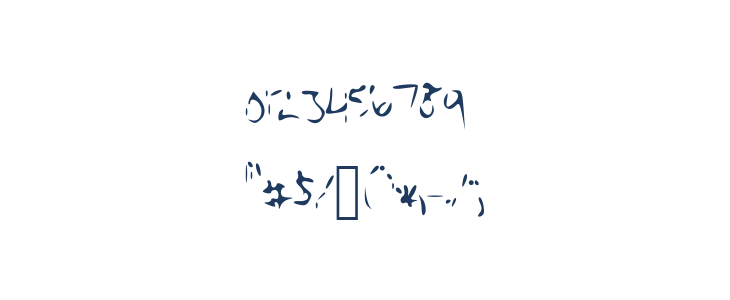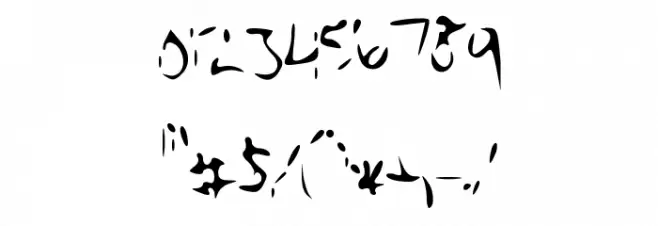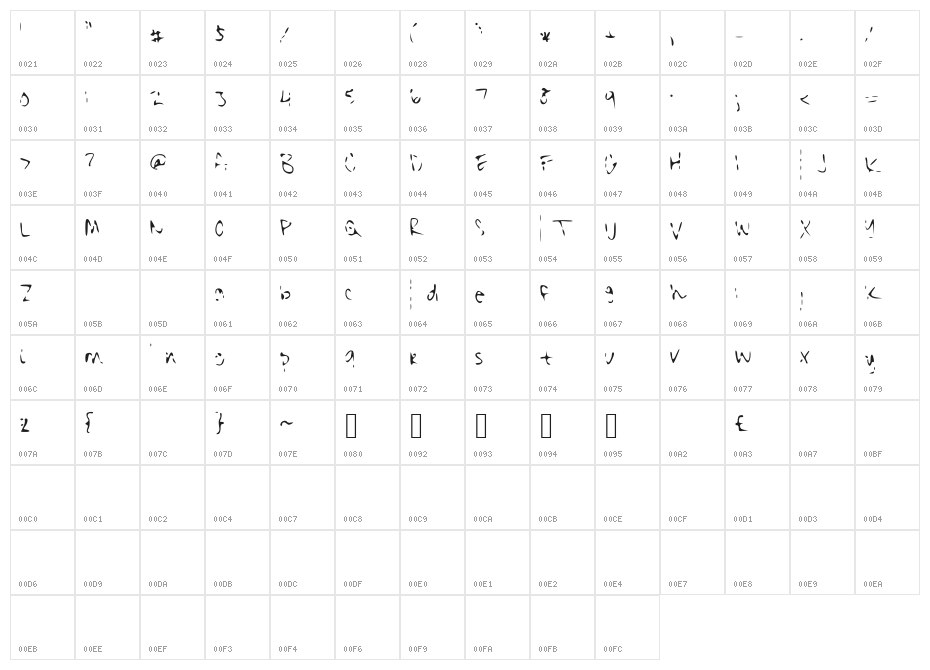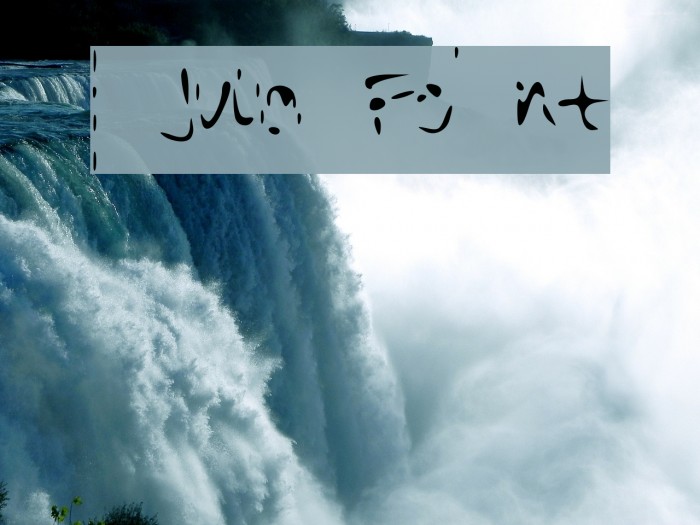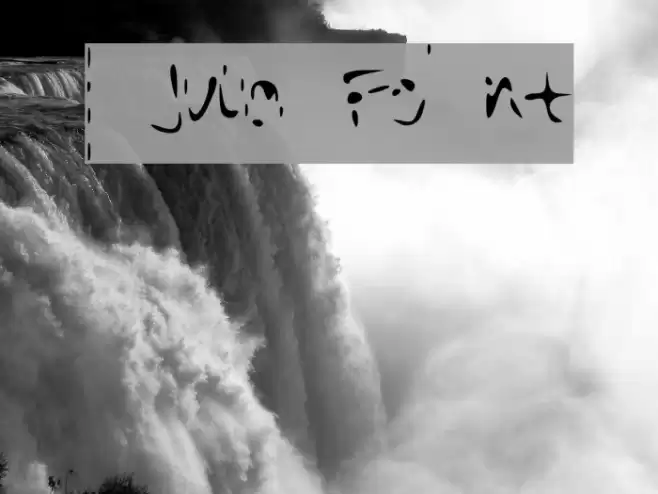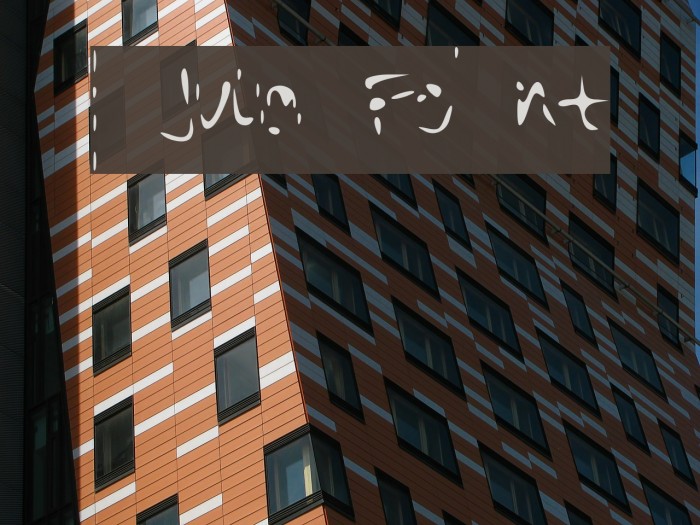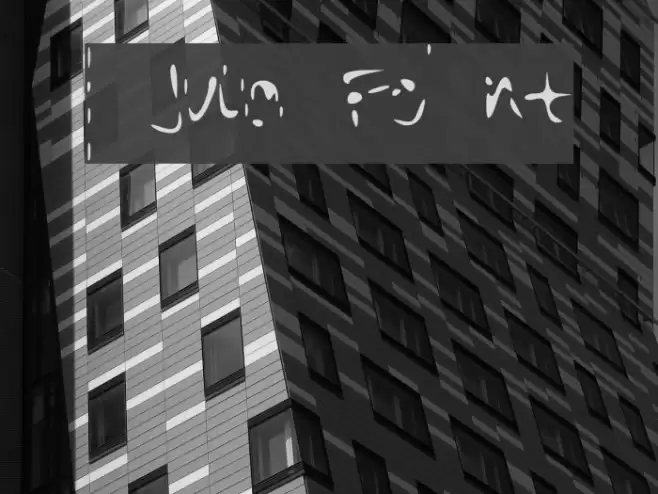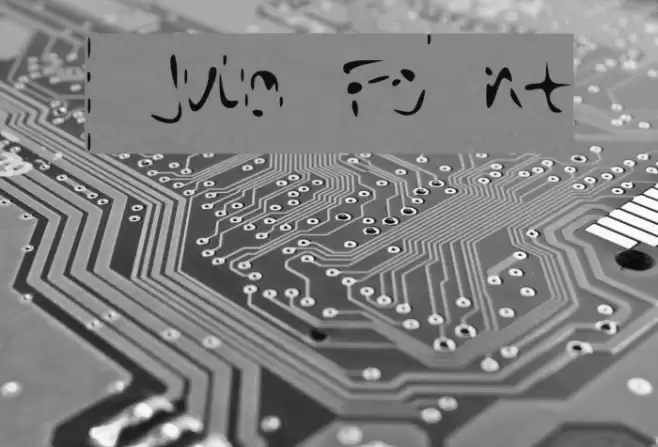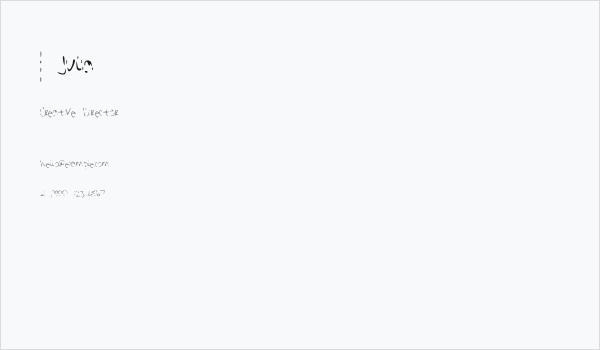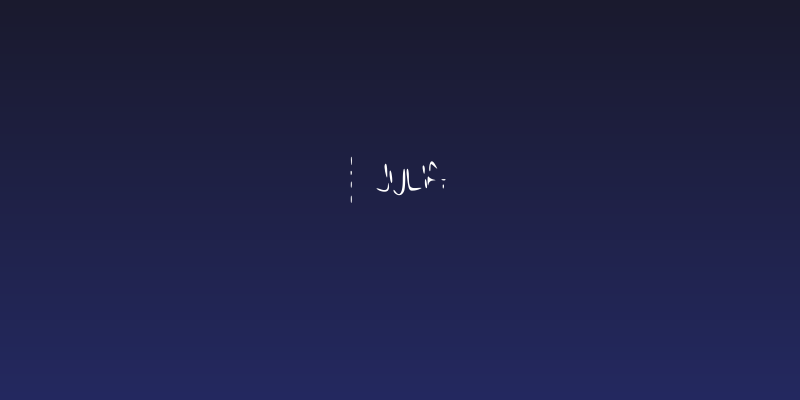
Julia Font
Julia Description
This font exhibits a highly artistic and abstract style, characterized by its fragmented and distorted letterforms. Each character appears as if it has been hand-drawn with a brush, featuring irregular strokes and varying thicknesses. The uppercase and lowercase letters maintain a consistent theme of broken lines and curves, creating a sense of movement and fluidity. The numbers and special characters follow the same design principles, adding to the overall cohesive look. This font's unique appearance makes it stand out, offering a visually striking option for creative projects.
| Use Case | Logos, Posters, Artistic Displays |
| Proposed Projects | Ideal for artistic projects, album covers, modern art posters, and experimental designs. |